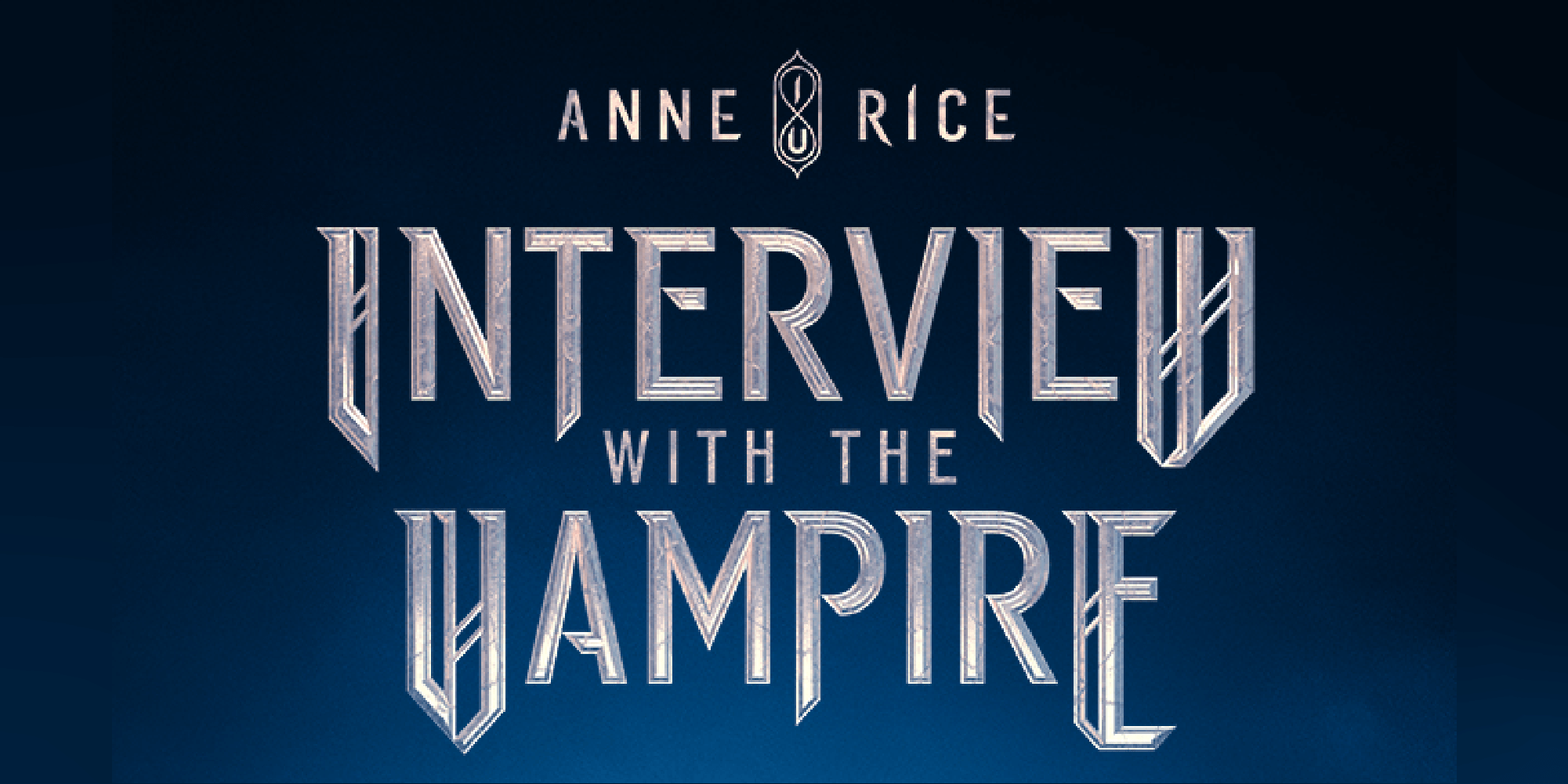
In 2022, television network and streaming service AMC released a new series based on Anne Rice's iconic novel Interview with the Vampire. Tasked with the revitalization's graphic design, loyalkaspar enlisted Type Network to infuse a geometric typeface with some new blood. With that at stake, Famira Fonts hammered it home.
AMC debuted in 1984 as a premium channel offering classic movies from before the 1970s in a commercial-free, uncut, and uncolorized format. Since then, the channel has produced several highly successful shows, including Breaking Bad, Mad Men, and The Walking Dead. Their latest hit: a series based on Anne Rice’s gothic horror novel Interview with the Vampire. This adaptation captures the source material’s mood while pushing it into modernity. After examining the available options, AMC’s creative agency loyalkaspar knew they needed a new typeface to match.
Enter Type Network: When loyalkaspar came to us with the project, they had a collection of sketches and requirements for the typeface, but they needed a type designer’s expertise to bring the idea to life.
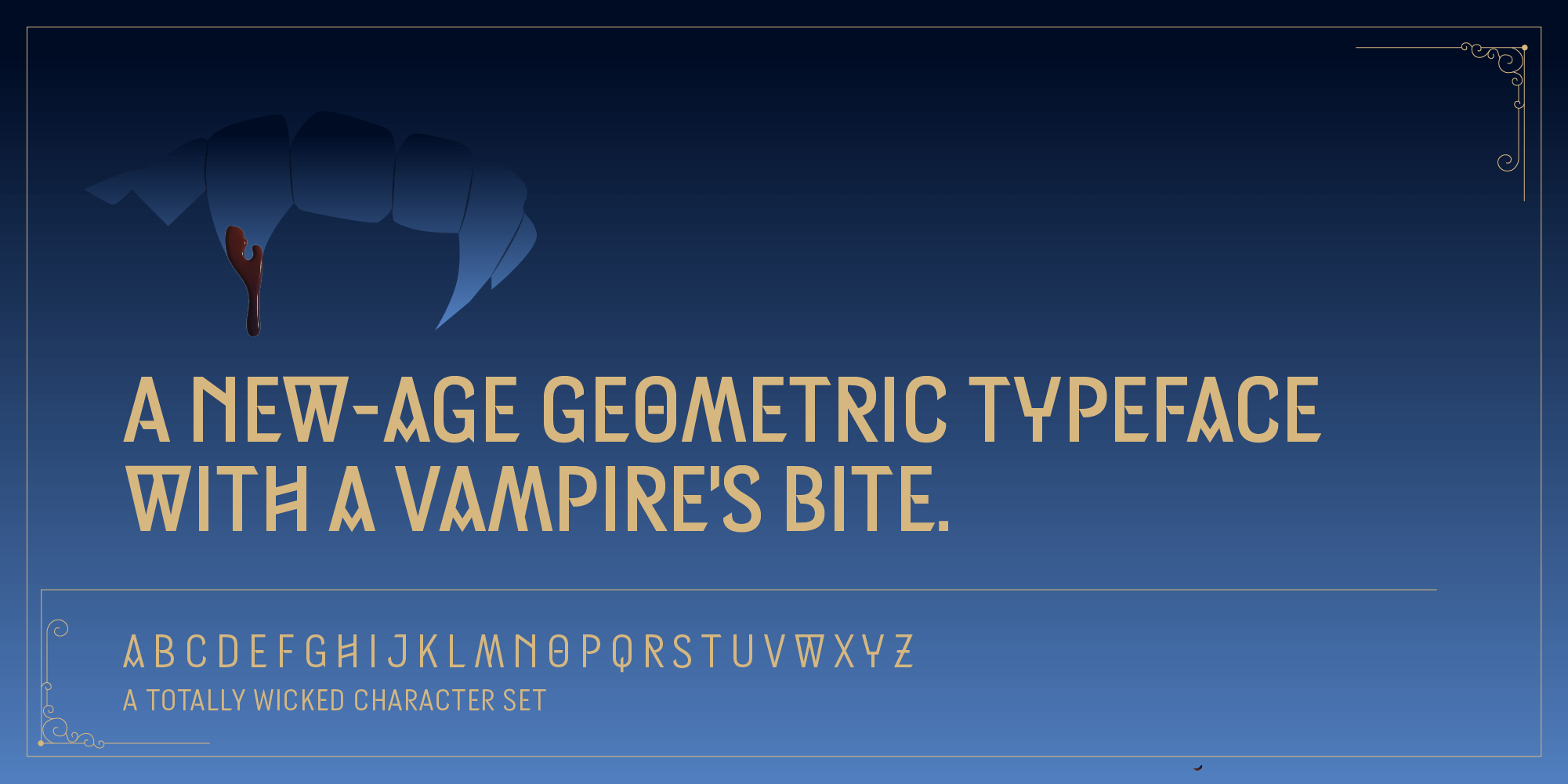
To draw the five required weights and infuse a unique mix of geometry and personality, director of custom type Dyana Weissman tapped foundry partner Hannes Famira of Famira Fonts. She managed the project and acted as Hannes’s collaborative partner, making sure we delivered on all of AMC and loyalkaspar’s needs.
The main design challenge posed by the typeface was to bend the common idea of a geometric sans. For the first part of his solution, Famira drew inspiration from the sharpness inherent to vampires—from their fangs to the wooden stakes used against them. He started by steering each letterform terminal to extreme angles:
Knowing this is for a vampire show informed how pointy each terminal has to be, right? If it’s a 45-degree angle, that doesn’t look dangerous! It must be something you really don’t want in your chest or neck.
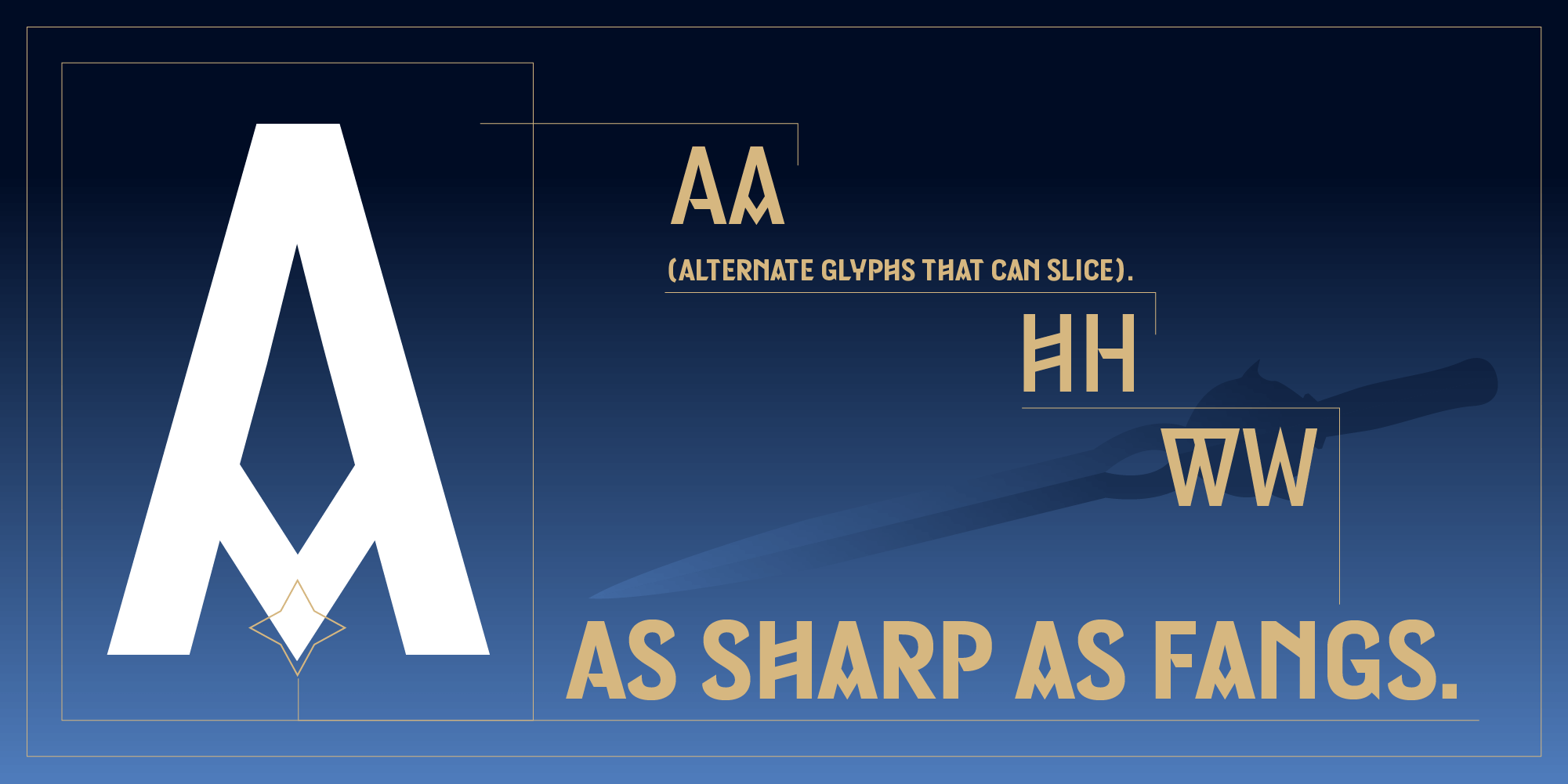
With a unique personal background in Dutch as well as in Swiss design, Famira Fonts focuses on the sweet spot between legibility and recognizable style.
The second part: For the typeface to function well in all weights, Famira relied not on simple geometric shapes but on a process of drawing and fine-tuning by hand. This approach ensures both that each weight is balanced and unique, and that the detail doesn’t blur with changes in size.
After the final font files were delivered, Famira commented, “When you work on something for a long time, you start going blind, and you don’t see the obvious things. Dyana was great at pointing those out to me. It was great to have a second pair of eyes on your designs. It was a really lovely collaboration.”
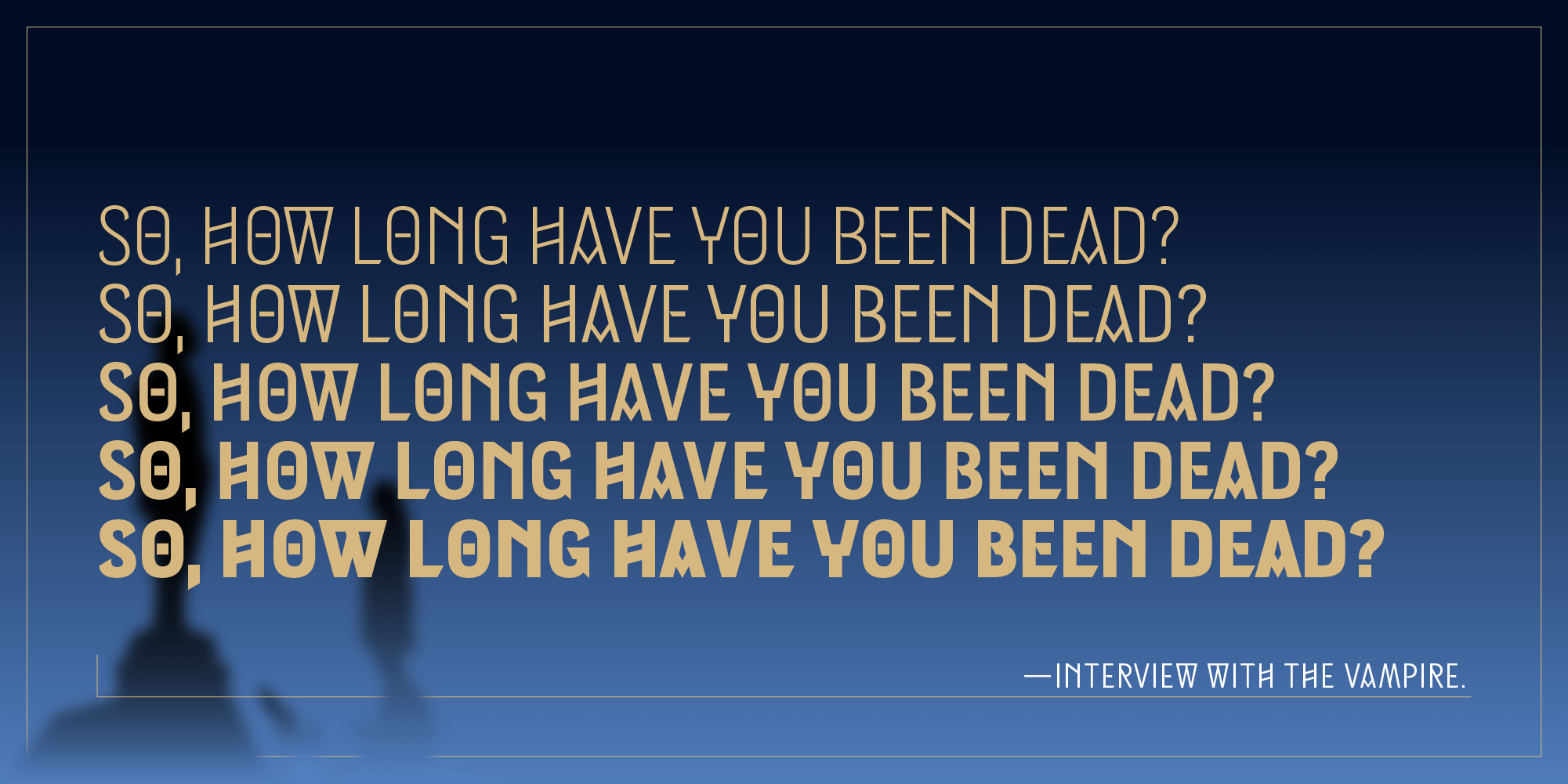
The result is Immortal Gothic: A new-age geometric typeface with a vampire's bite. As described by Famira:
This is the rebirth of the geometric typeface. If you look at the original geometric typefaces that evolved after the turn of the century, people were just disgusted with any expression. Everything earlier was ornamented, and they didn’t want it. Now we’re sort of circling back to that but In a different context. It’s interesting to see a really contemporary TV show going for a typeface that has that early 19th-century style. The two tastes come together, creating a really strong aesthetic.
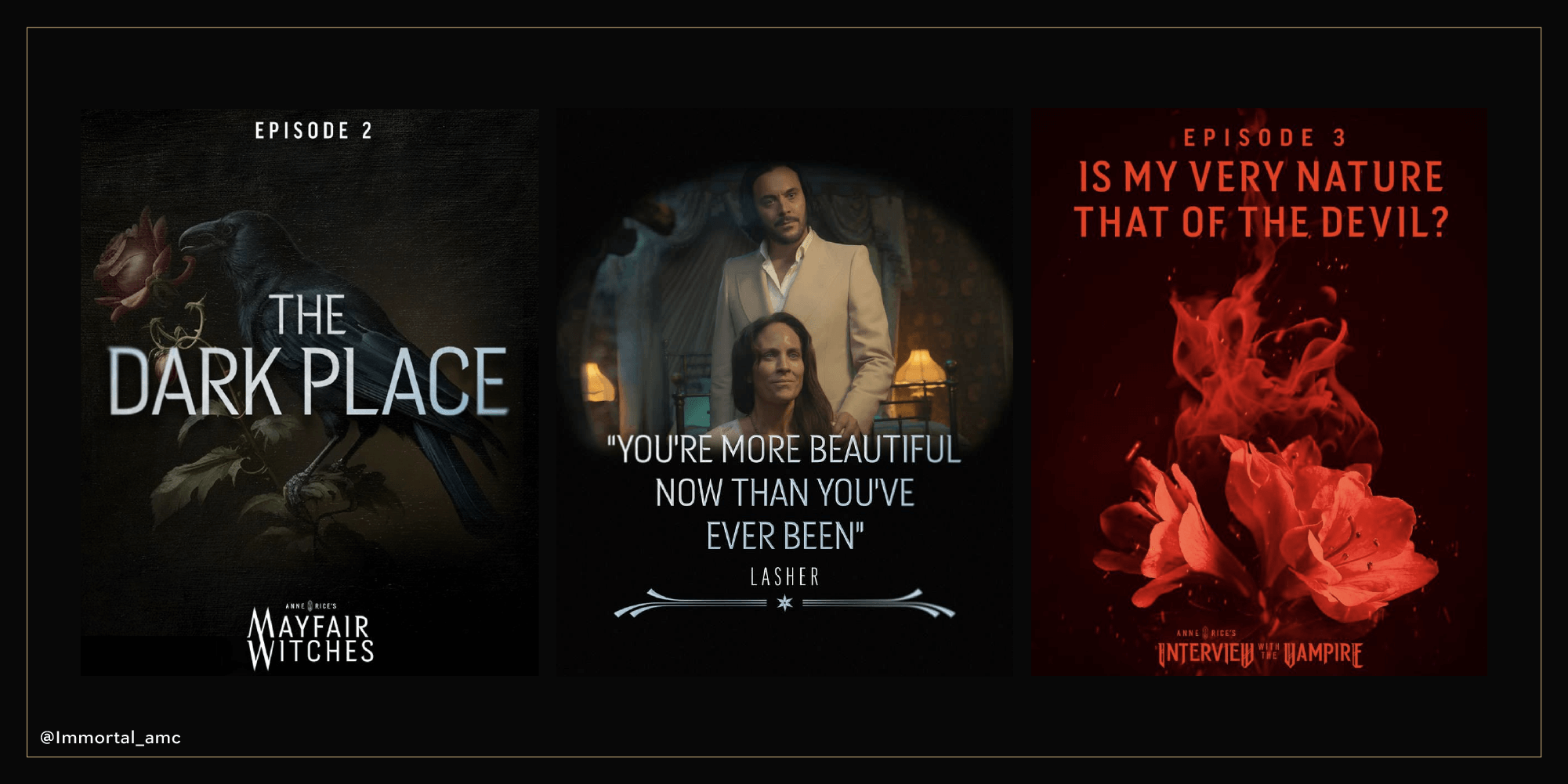
In vein with the Rice-based series, AMC has produced more new shows incorporating the typeface. Watch Interview with the Vampire, Mayfair Witches, and All of Them Witches now streaming on AMC+ to see Immortal Gothic in action.